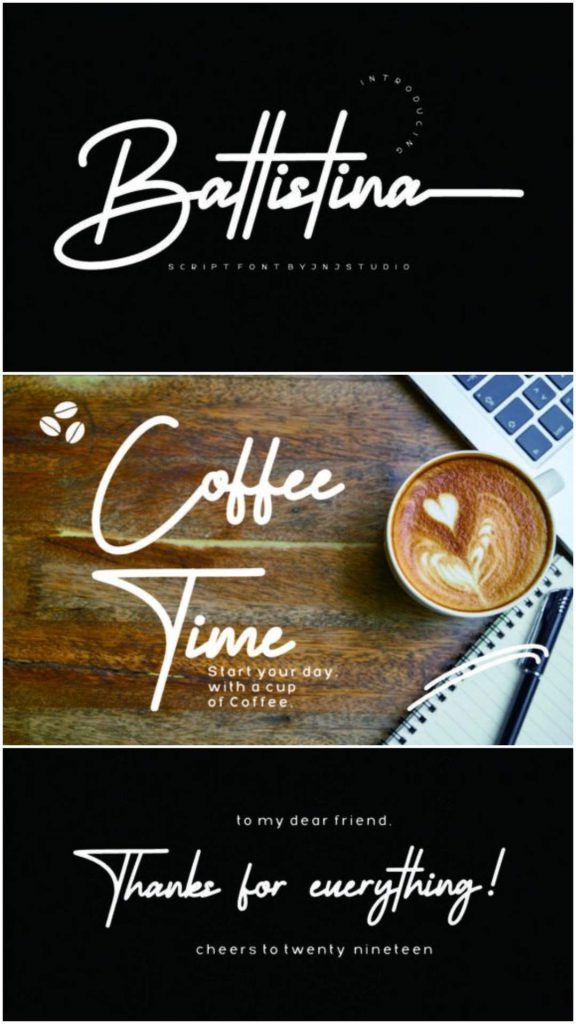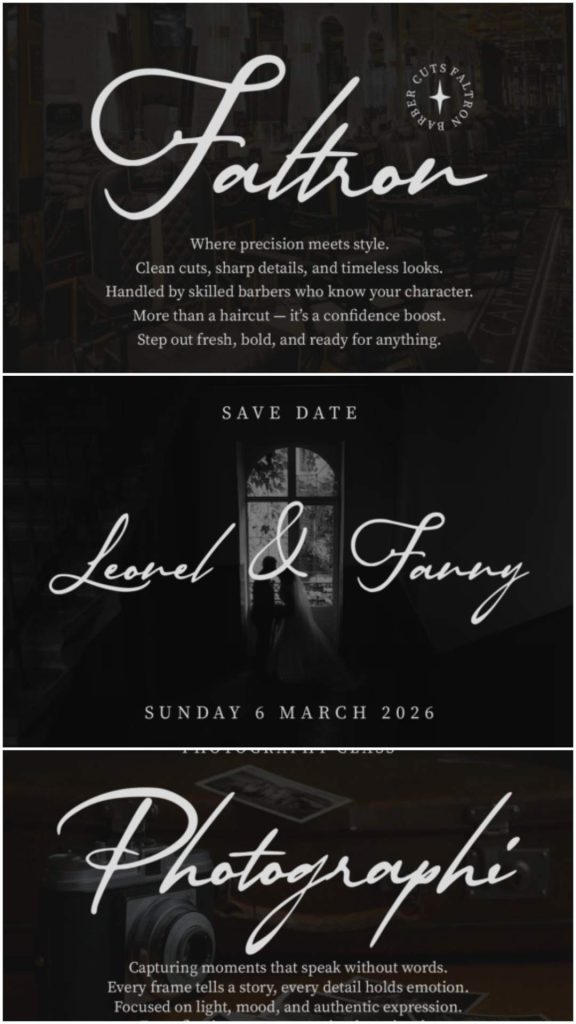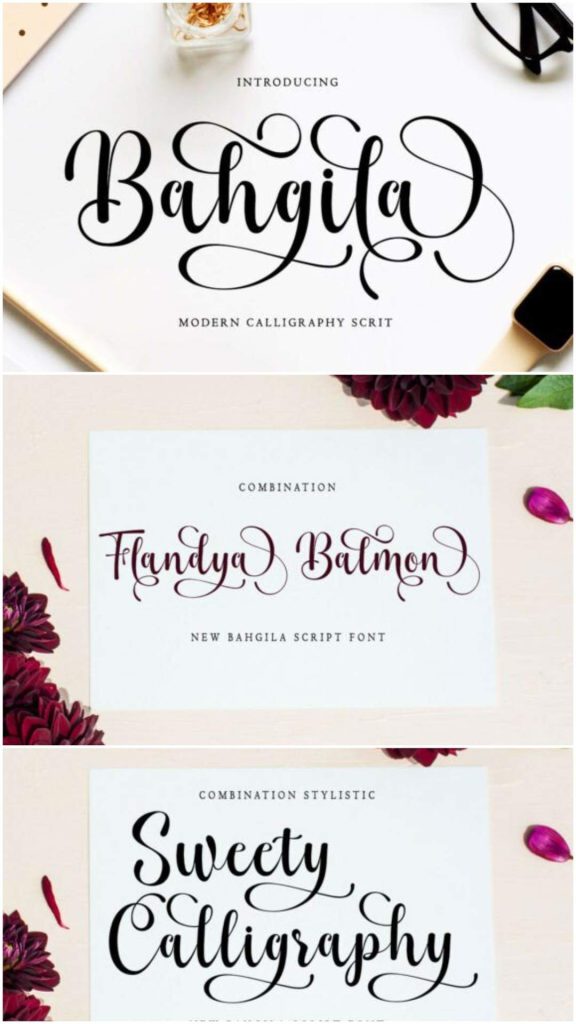
18 Elegant Script Fonts for Luxury Packaging That Instantly Elevate Branding
Luxury packaging rarely feels luxurious by accident.
You can have the thickest cardstock, gold foil, embossed details, and still end up with packaging that feels oddly forgettable. Most of the time, the typography is the missing piece.
I started noticing this after comparing boutique candle brands and perfume packaging side by side a while back. Some products instantly felt expensive before I even touched the box. Others looked generic even with premium materials. In a lot of cases, the difference came down to the font choice.
Script fonts do something minimal sans serifs usually canโt. They add personality fast. A good script font can make packaging feel handcrafted, romantic, refined, or fashion-forward within seconds.
And with luxury eCommerce getting more competitive every year, those first impressions matter more than most brands realize. People judge packaging incredibly quickly โ especially on Pinterest, Etsy, Instagram, and mobile storefronts where visuals do almost all the work.
This collection covers 18 elegant script fonts for luxury packaging that work especially well for beauty brands, boutique products, candles, jewelry packaging, wedding products, skincare, and upscale handmade goods. Some are dramatic and expressive. Others are softer and easier to use across labels and smaller packaging
A few of these also hold up surprisingly well in foil stamping and embossing, which hon
Top 18 Elegant Script Fonts for Luxury Packaging
1. Rokeriot
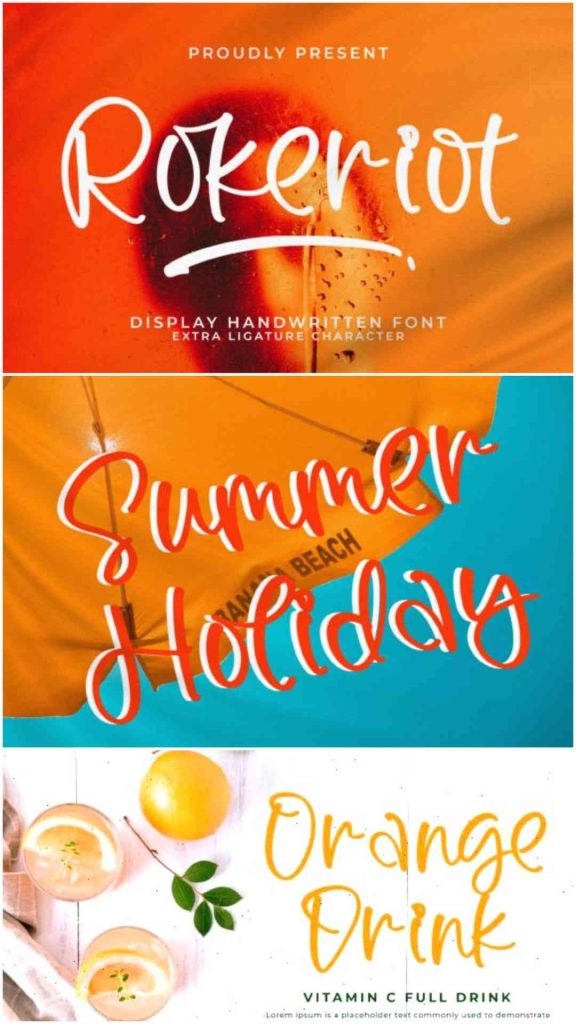
Rokeriot has that modern handwritten look that feels polished without becoming overly formal.
What I like about it for packaging is the balance. Some luxury script fonts lean so heavily into decorative swashes that they become difficult to use on actual products. Rokeriot stays readable even on smaller labels and hang tags.
It works especially well for:
- Boutique skincare
- Jewelry packaging
- Fashion branding
- Shopping bags
- Minimal perfume labels
The strokes feel organic and slightly relaxed, which helps brands avoid that overly corporate โluxuryโ aesthetic thatโs become pretty common lately.
On textured paper stock, the font keeps its elegance without looking too delicate.
2. Folkies Duo
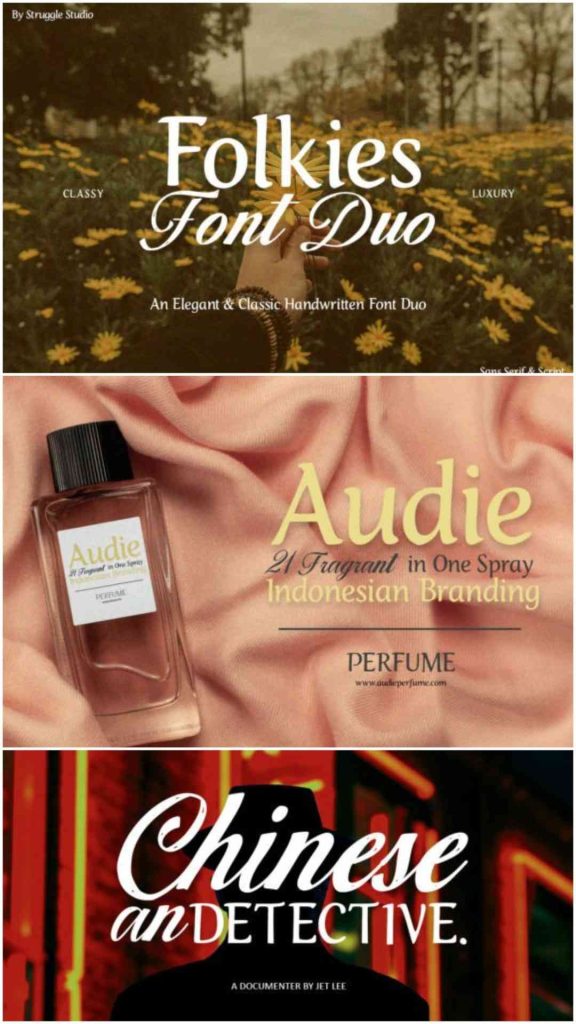
Folkies Duo is more of a complete branding system than just a script font.
You get a flowing script paired with a structured serif, and that combination makes packaging design much easier. A lot of luxury brands already mix expressive typography with cleaner supporting fonts because it creates contrast without feeling messy.
Iโve noticed pairings like this work especially well for:
- Candle packaging
- Wedding product lines
- Boutique cosmetics
- Premium stationery
- Luxury gift boxes
The serif helps stabilize layouts while the script handles the emotional side of the branding.
That balance matters more than people think once you start designing actual packaging instead of just logo mockups.
3. Santa
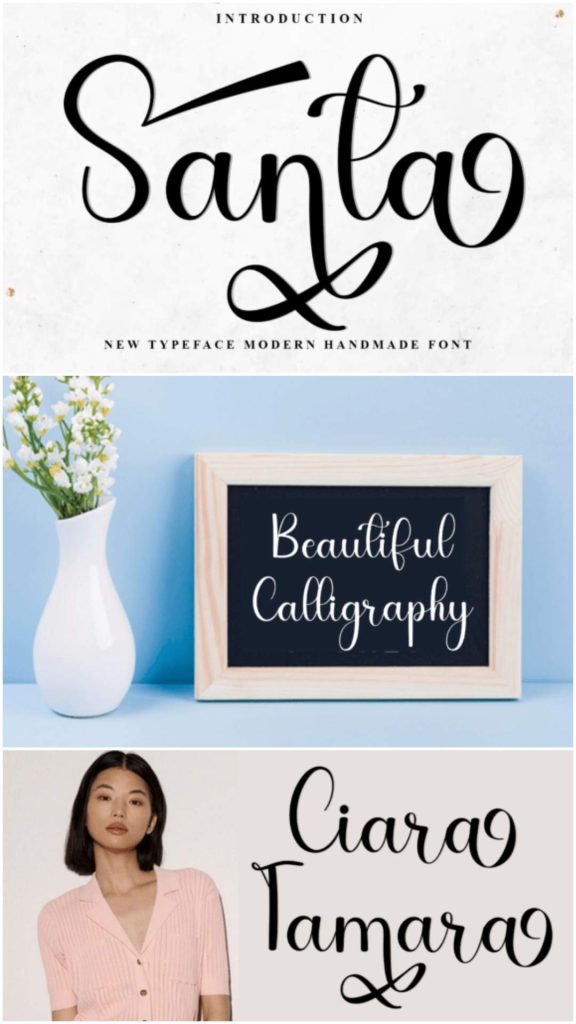
Despite the name, Santa isnโt limited to holiday branding at all.
It has dramatic swashes and elegant contrast, but the overall structure still feels versatile enough for year-round luxury packaging. The thicker downstrokes also reproduce nicely in foil printing, which can sometimes become a problem with ultra-thin script fonts.
One thing I noticed with fonts like this: they look best when given breathing room.
Trying to squeeze highly decorative scripts onto crowded labels usually ruins the effect. Santa works much better on cleaner layouts where the typography gets space to stand out.
Perfect for:
- Perfume boxes
- Boutique chocolate packaging
- Invitation suites
- Luxury candles
- Beauty products
4. Nefasta
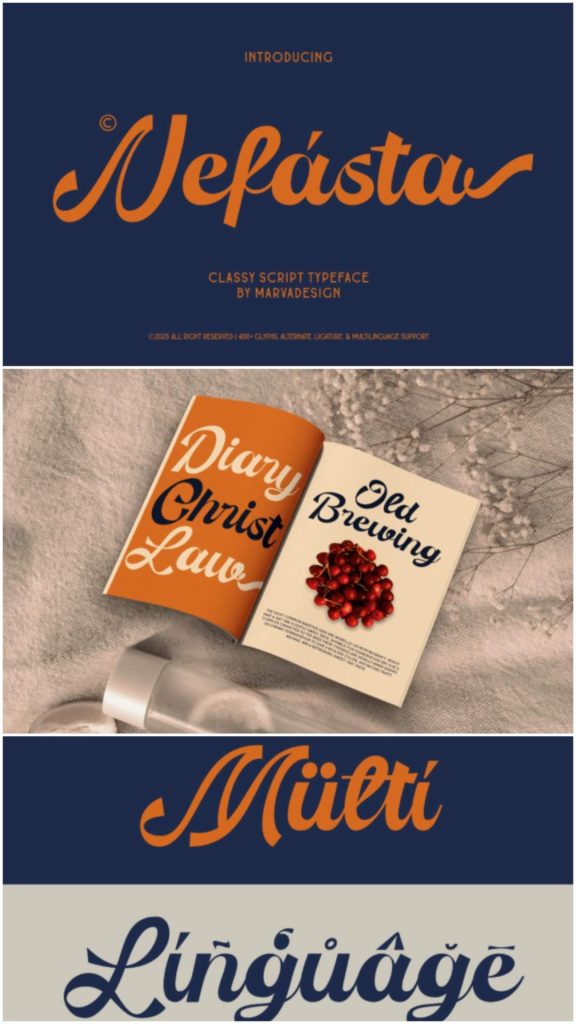
Nefasta feels very polished. Probably one of the more premium-looking fonts in this collection.
The curves are smooth, spacing feels intentional, and the ligatures help the lettering flow naturally without becoming hard to read. That last part matters a lot on packaging.
Some script fonts look gorgeous in previews but become frustrating once scaled down onto jars, labels, or cosmetic boxes.
Nefasta holds up better than most.
It also includes a huge glyph set, which makes it easier to customize branding without everything looking identical to every other Instagram boutique using the same font.
For luxury skincare or modern beauty packaging, this one fits almost immediately.
5. Gladiesky
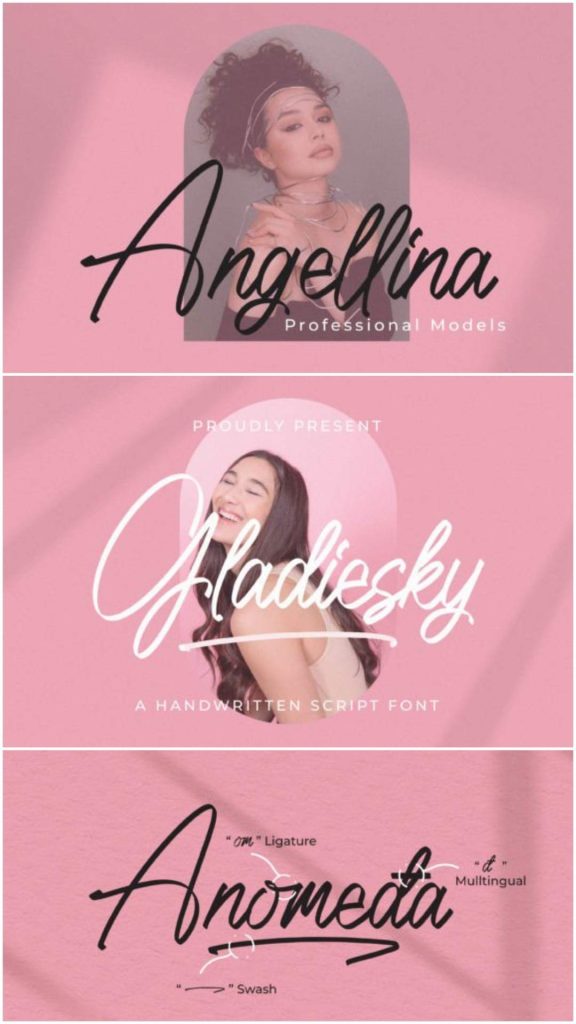
Gladiesky feels softer and more romantic compared to some of the bolder scripts here.
I could easily see this working for:
- Wedding packaging
- Feminine skincare
- Soap labels
Which script fonts work best for foil stamping?
Fonts with balanced curves and slightly thicker strokes usually perform best. Floridin, Eaglese Pro, and Battistina all work nicely because they maintain readability while still looking refined in metallic finishes.
How many fonts should luxury packaging use?
Usually two is enough.One expressive script font paired with a cleaner supporting serif or sans serif tends to create the most balanced luxury look without overwhelming the packaging.